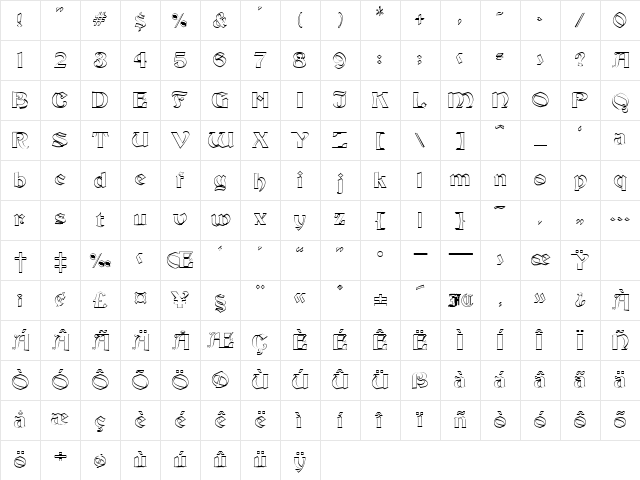
Complete BasilikaOpen Regular glyph index. Displaying only characters natively supported by BasilikaOpen Regular font.
BasilikaOpen is a composed and adaptable typeface that performs quietly and consistently across a wide range of design contexts.